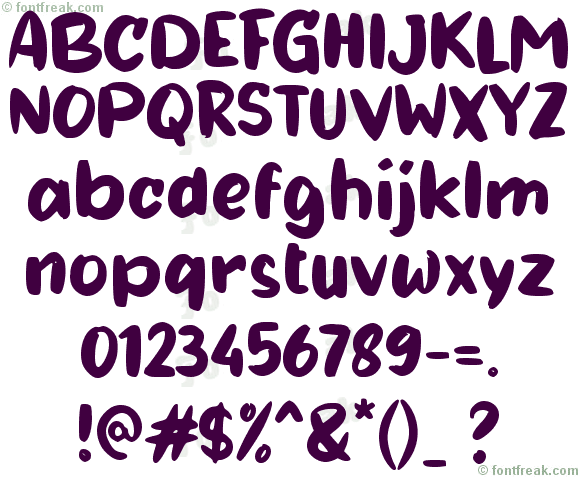
Bester Better
About Bester Better
Bester Better, designed by Wahyu Eka Prasetya, is a captivating display font that exudes a modern, playful spirit, making it a perfect choice for various creative projects. This font falls into the category of sans-serif, characterized by its bold, rounded letterforms that give it a friendly and approachable appearance. The stroke weight is consistent, contributing to a cohesive look, while the slightly elevated contrast adds a touch of sophistication. The spacing is well-balanced, ensuring readability while maintaining a lively vibe.
This versatile font is ideal for a range of applications. It shines in wedding invitations, where its charming style can set a romantic tone. Additionally, Bester Better works wonderfully for movie posters, lending an eye-catching element that draws viewers in. Restaurant menus can also benefit from its engaging design, making dishes appear more enticing. Furthermore, this font is suitable for social media graphics, helping content creators achieve a distinctive and memorable look that stands out in crowded feeds.